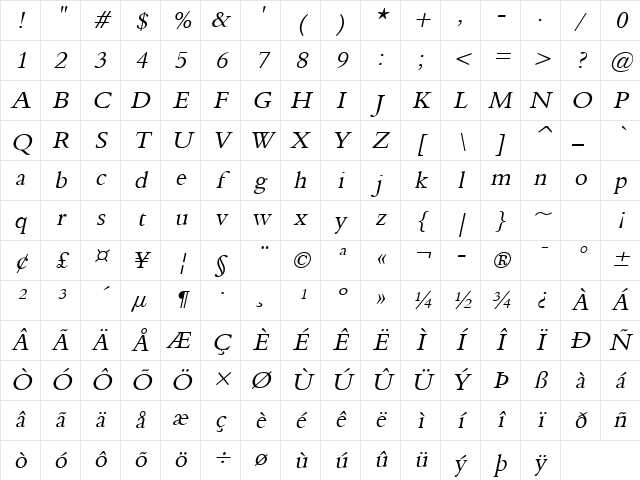
Nadine 2 Wide Italic
Design Context for Nadine 2 Wide
Nadine 2 Wide is a composed and adaptable typeface that performs quietly and consistently across a wide range of design contexts. The slanted form adds forward momentum and visual energy.
Pro Tip: Use Nadine 2 Wide for emphasis, pull quotes, and subheadings where its slanted energy can add rhythm to the layout.